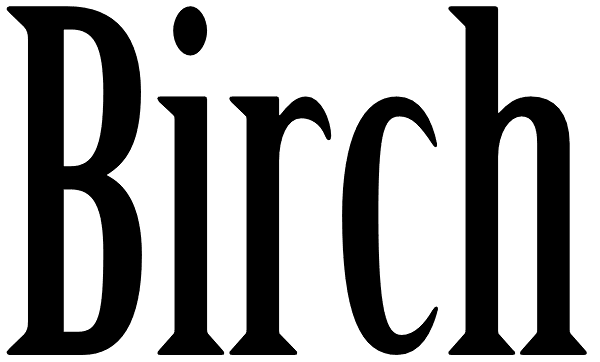
Birch
Birch is an Adobe Originals typeface designed in 1990 by Kim Buker Chansler. Birch is based on a Latin Condensed wood type found in a 1879 William Page specimen book; Birch is a particularly legible condensed display typeface notable for its angled...